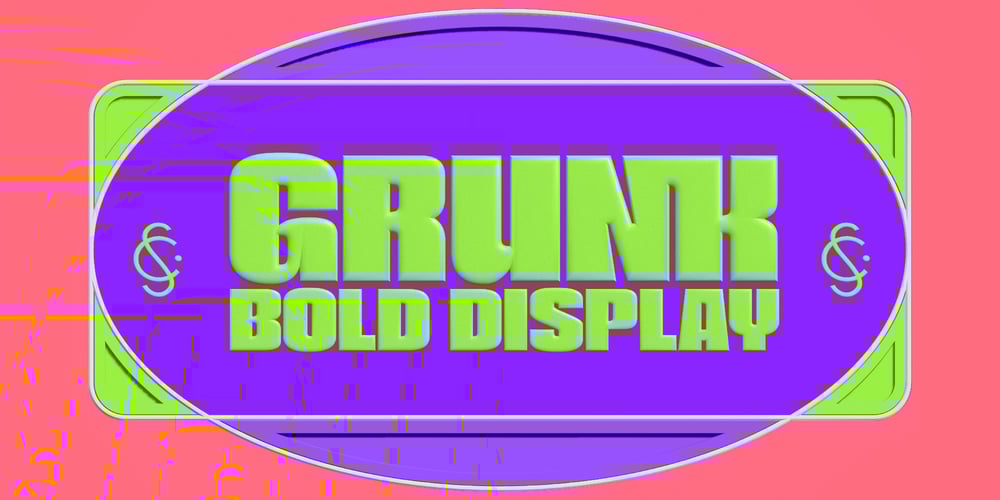
Grunk Font Family was designed by Wantara Putra and published by Casloop Studio. Grunk contains 1 styles and family package options. Introducing GrunkA Bold Melody of Colorful Typography. Grunk, a symphony of pop culture and vibrant expression, is more than just a font; it’s a celebration of creative freedom. As a bold display font, Grunk bursts onto the design stage with a lively and colorful twist. This sans-serif chunky typeface, boasting a Retro Cartoon Font and Groovy Typography, features bold chunky letters that exude a playful yet sophisticated vibe, setting it apart as a true design virtuoso.Grunk stands tall, leaving users stunned and impressed with its gorgeous and eccentric twist. Crafted for versatility, it takes center stage across website designs, packaging, logos, branding, album covers, 3D projects, stickers, emblems, logotypes, bands, music, and posters. Grunk’s unique and childishly cool fonts redefine design norms, ensuring satisfaction and a lasting impact.Technically, this typeface has 2 mainstay features: the alternate character that looks boxy and at the same time looks groovy and very modern. Then there’s the experimental Ligatures feature as precise as standard characters. Then, the feature that we always include in each of our works is the multilingual characters, especially the extended Latin characters that provide almost 100 languages.Features : Uppercase & lowercase Numbers and punctuation Ligatures & Alternates PUA Encode Multilingual